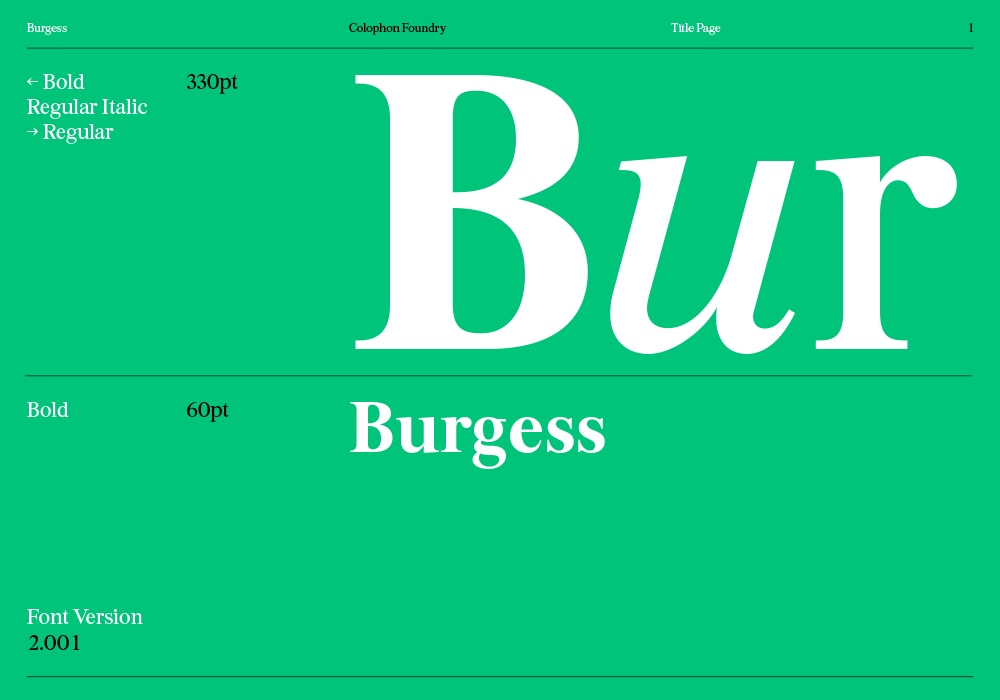
Burgess Font
Burgess Font is perfect for prestigious law firm branding, traditional banking institution signage, established family business logos, heritage insurance company materials, classical education academy graphics, distinguished gentleman's club communications, luxury estate planning services, traditional investment advisory firms, historic institution presentations, and refined corporate legacy branding. This distinguished typeface excels in applications where institutional authority, traditional values, and established credibility are fundamental brand characteristics.
What makes Burgess Font exciting is its masterful embodiment of institutional gravitas through letterforms that capture the dignity and reliability of established professional institutions with generations of trusted service. The font features robust character construction with classical proportions and authoritative details that immediately convey stability, expertise, and the kind of institutional wisdom that comes from decades of professional excellence. Its distinguished presence makes it perfect for organizations that have earned respect through consistent performance and unwavering commitment to traditional professional values.
The Burgess Font family typically includes Regular and Bold weights, often accompanied by italic variations that enhance formal document versatility and professional correspondence requirements. Many versions include small caps, old-style numerals, and extensive ligatures that reflect traditional Anglo-American business typography standards. Some collections include ornamental elements, institutional borders, and formal decorative details that complete the established professional aesthetic for comprehensive corporate applications.